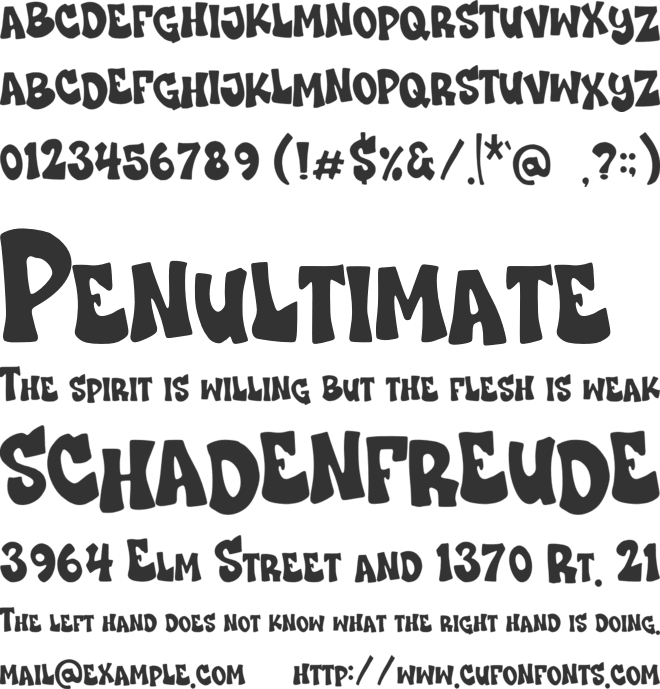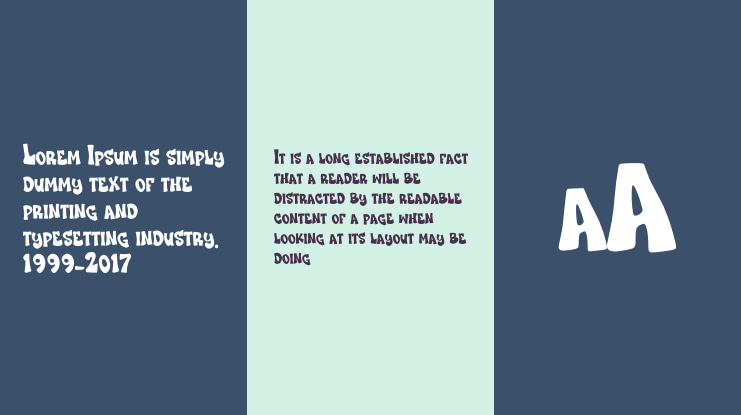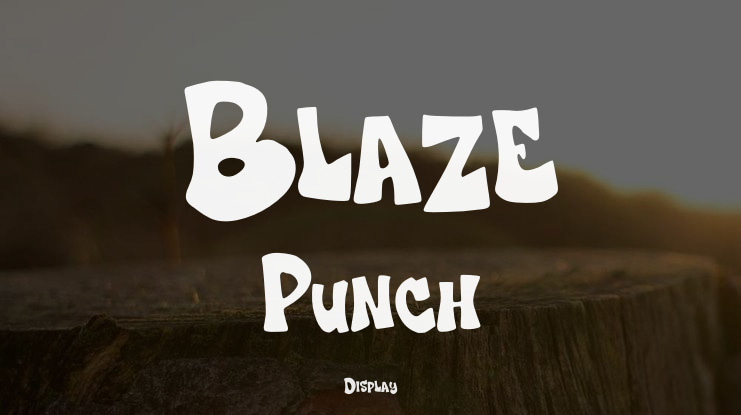
Blaze Punch Font Family
Blaze Punch Font Duo is a playful and bold typeface designed to make your projects stand out. This font is free for personal use only. If you want to use it for commercial purposes, a donation is required. Perfect for posters, logos, social media graphics, and creative designs.